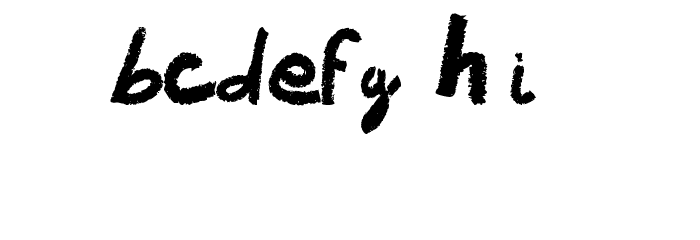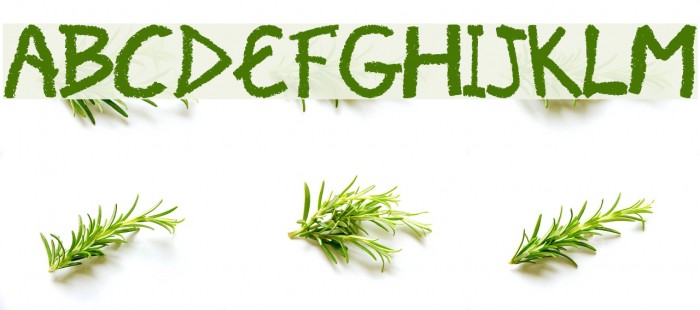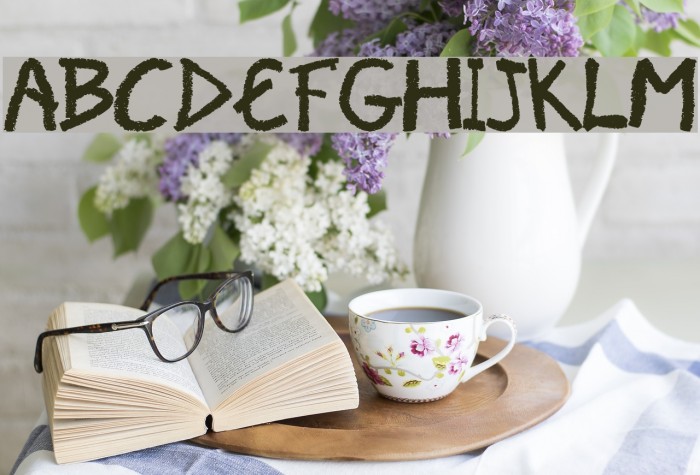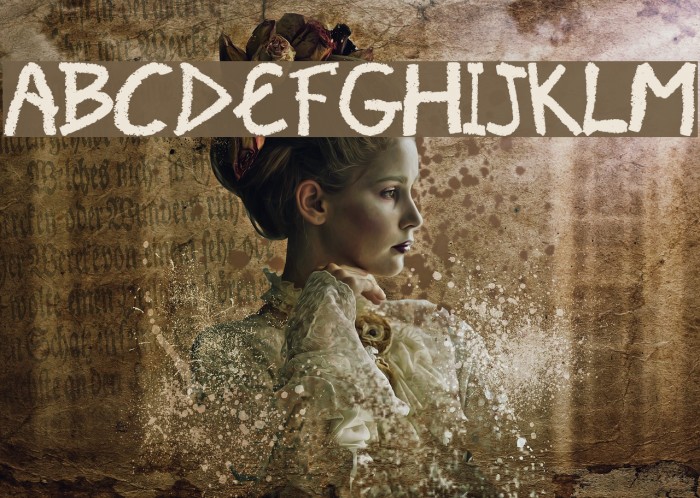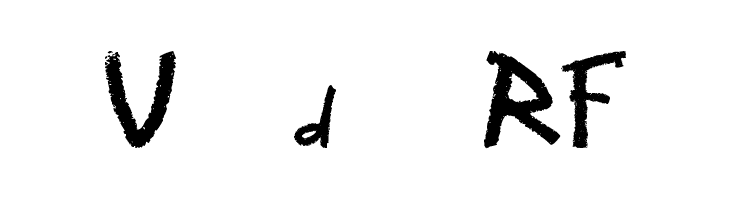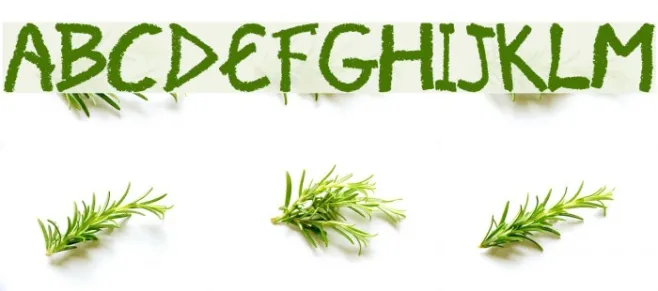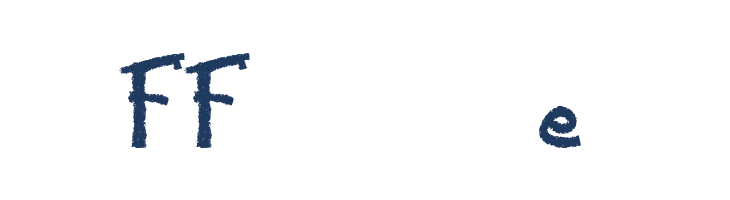
Vaudoo RF Font
This font exhibits a bold and expressive style, characterized by its rough, hand-drawn appearance. The uppercase letters are particularly striking, with a rugged texture that gives them a dynamic and energetic feel. The lowercase letters maintain this hand-crafted aesthetic, adding a touch of informality and creativity. The unique design of certain characters, such as the 'N' with a circle and slash, adds a distinctive flair. The overall impression is one of spontaneity and artistic expression, making it ideal for projects that require a bold and unconventional look.
A bold, hand-drawn font with a rugged, expressive style.
- Proposed Projects: Ideal for artistic projects, posters, album covers, and any design requiring a bold, creative touch.
- Use Case: Headlines, Logos, Artistic projects